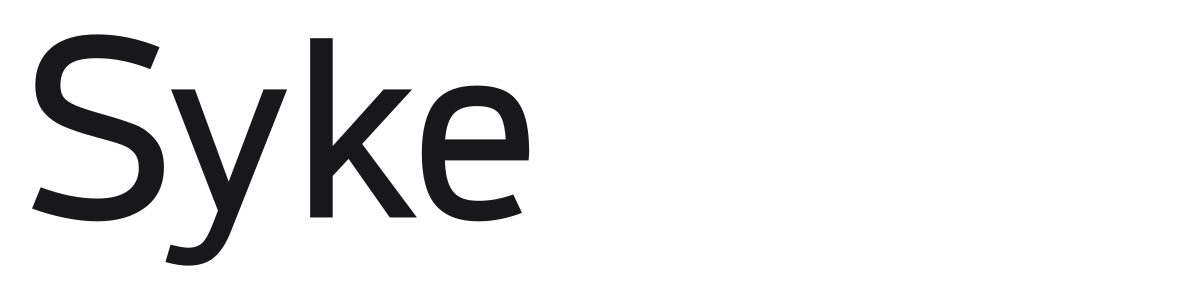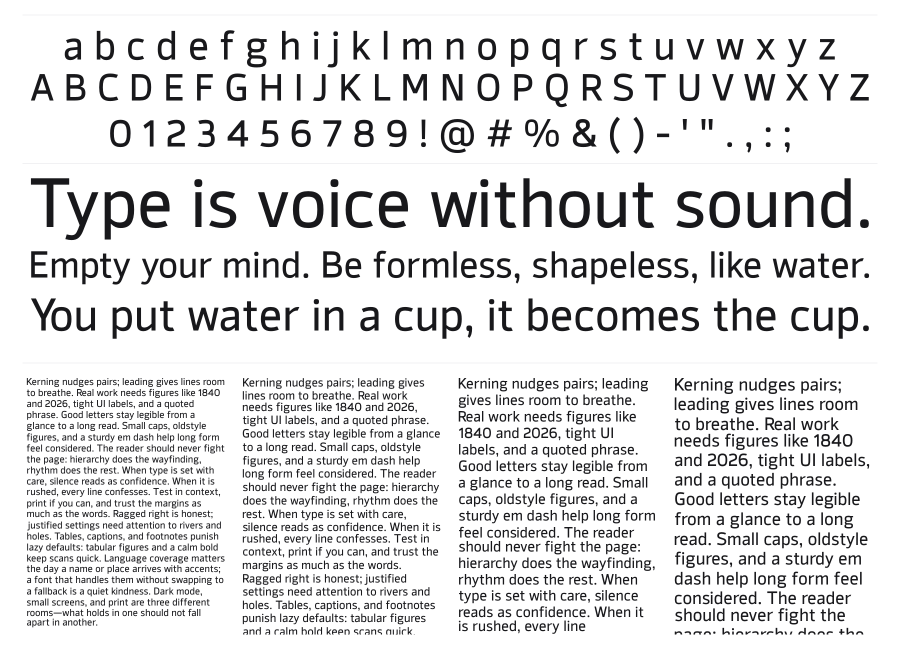
Syke
Syke is a sans-serif type family that sits at the intersection of humanist and geometric traditions. Narrowly rounded letter shapes sit alongside subtle square detailing, giving the design a quiet but distinctive voice that doesn't compete with content. It works across film titles, user interfaces, and body copy without feeling like a compromise.